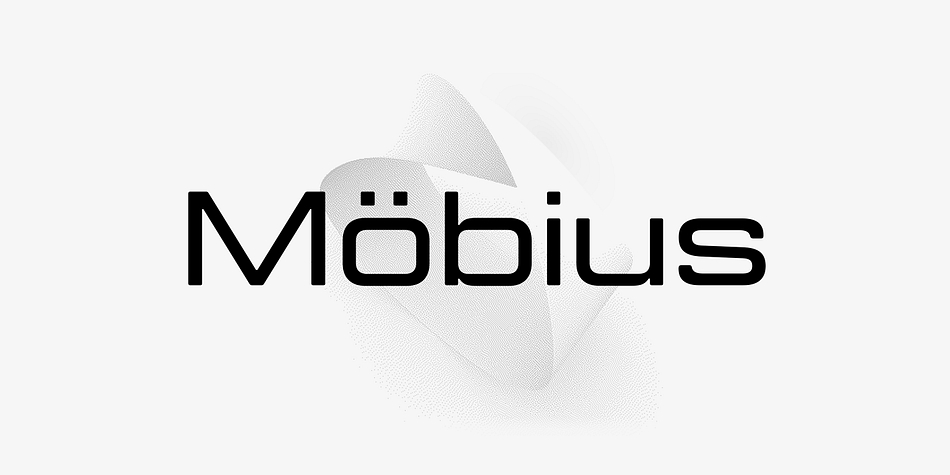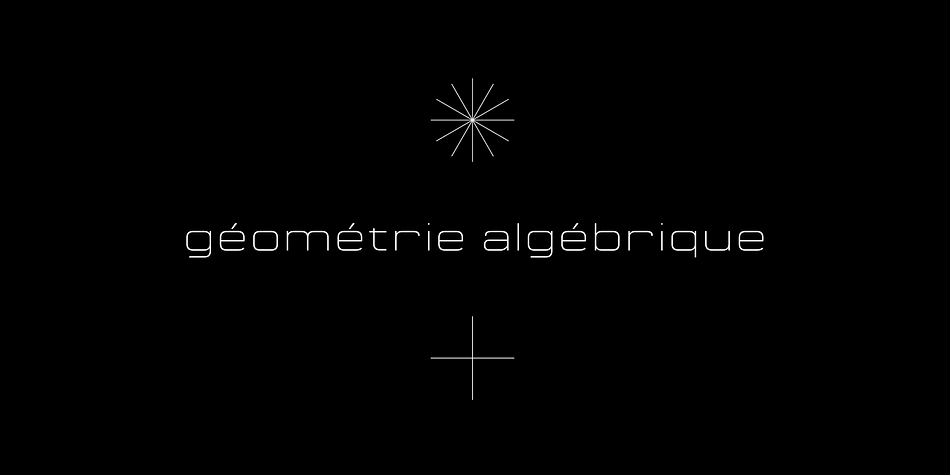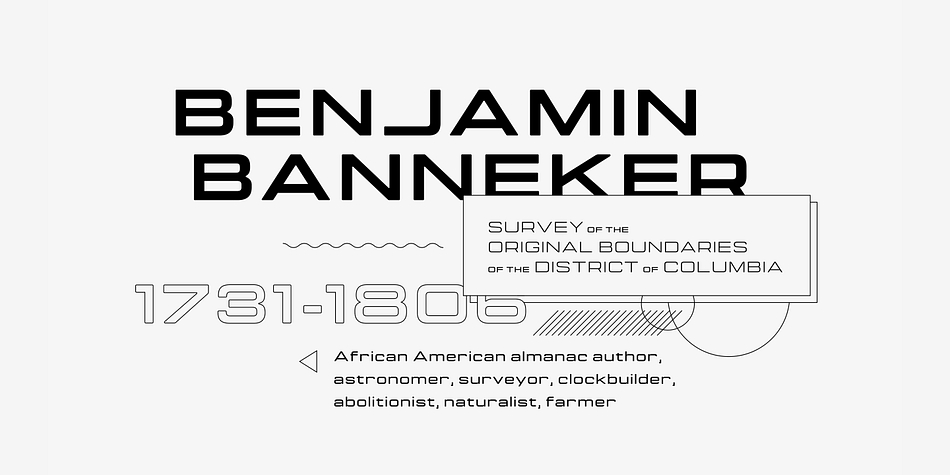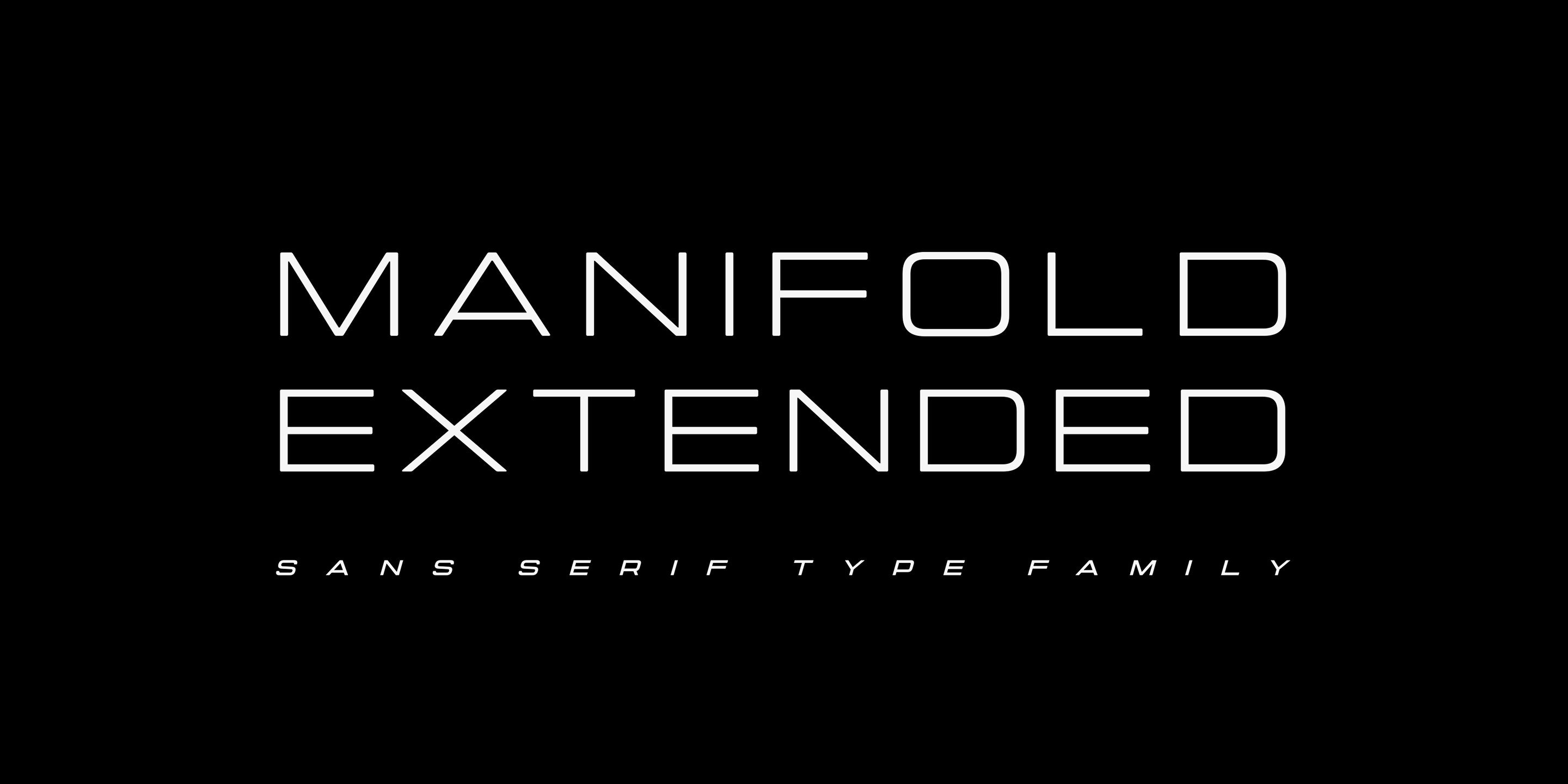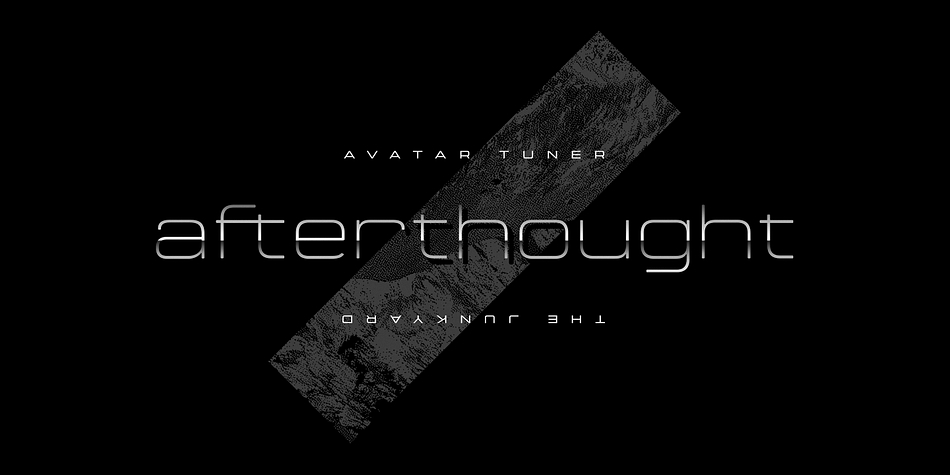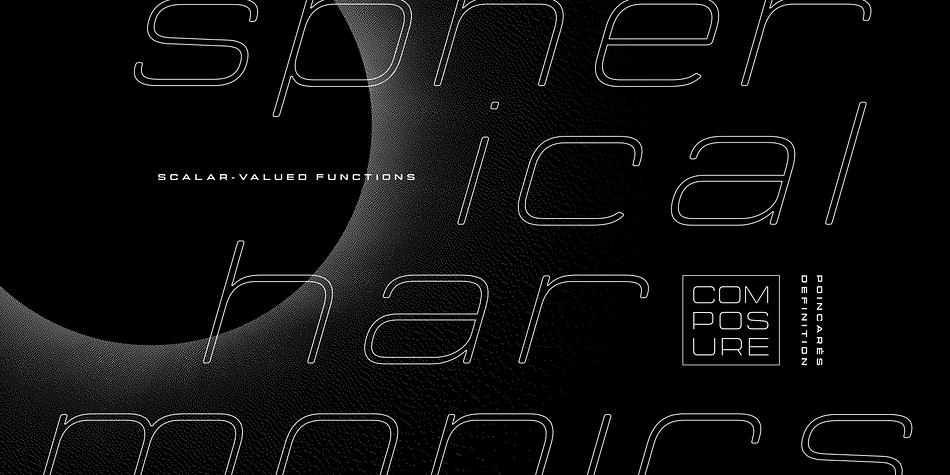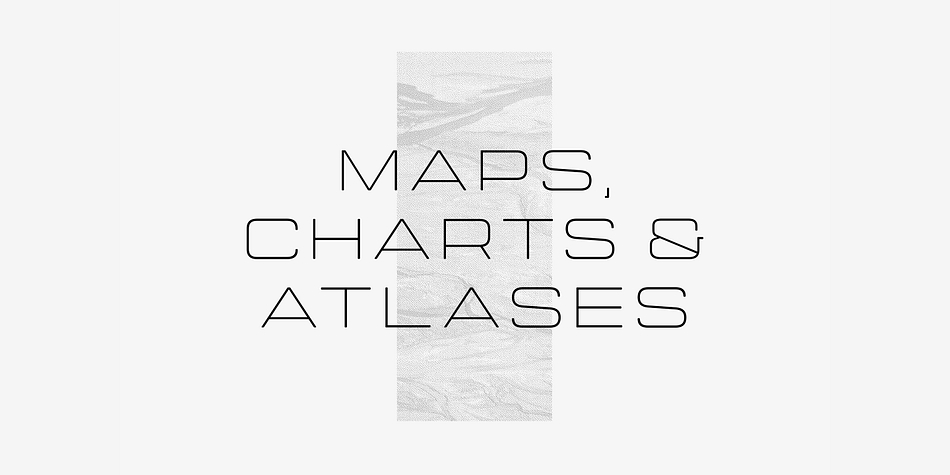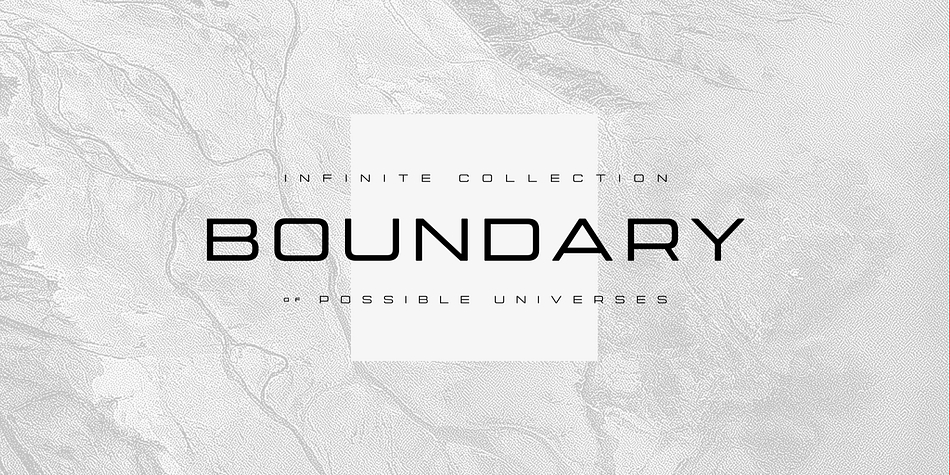
Designed by Connary Fagen, Manifold Extended CF is a sans serif font family. This typeface has sixteen styles and was published by Connary Fagen Type Design.
Commanding, luxurious, and sharp.
Manifold Extended is a wide variation on the classic Manifold font family. Its clean, elongated shapes are both technical and elegant. An excellent typeface for titles, logotypes, user interfaces, and short texts.
- Eight weights and obliques
- OpenType features
- Latin and Cyrillic multilingual support